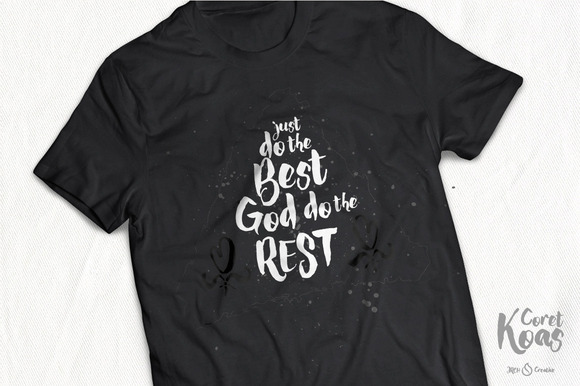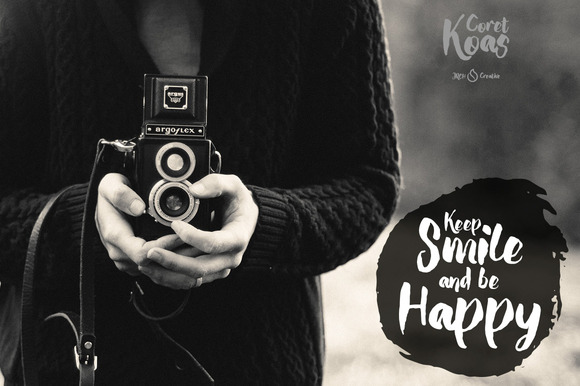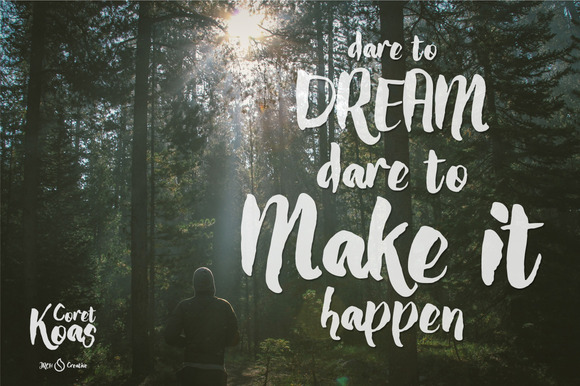
CoretKoas Font
Introducing CoretKoas is an expression of mood. Spontaneous brush and easy flow give the natural looks. Great for designing book covers, film covers, apparel, cards, logos, poster, souvenirs, T-Shirt, etc.